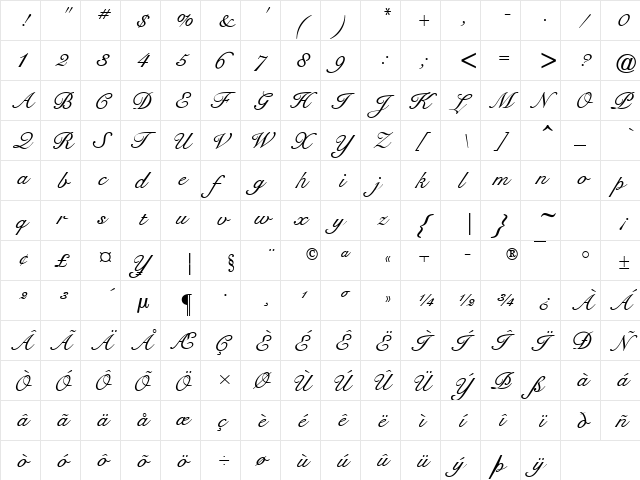
Signet Roundhand Italic Font Preview
Signet Roundhand Italic
Signet Roundhand Italic Font Details
Design Context for Signet Roundhand Typeface
Signet Roundhand brings a calligraphic fluidity to the page — its connecting strokes and expressive curves give it an unmistakably human quality.